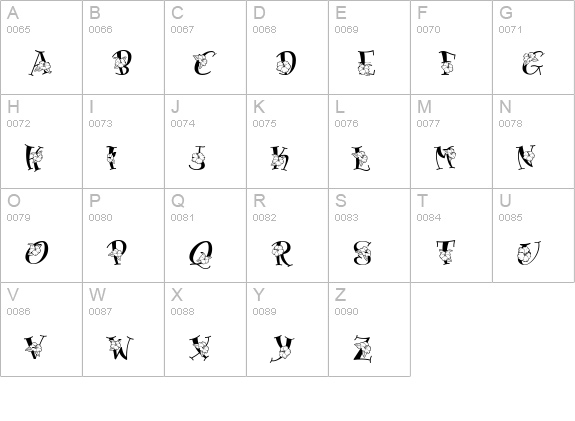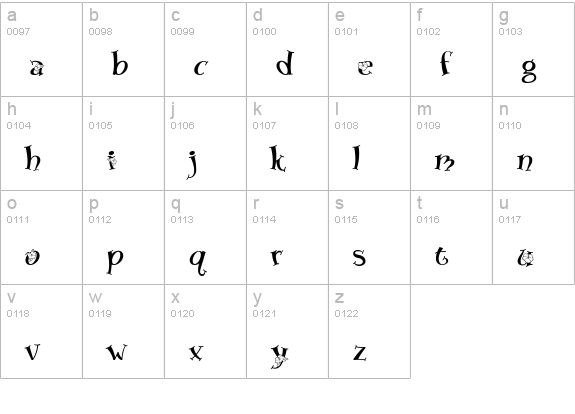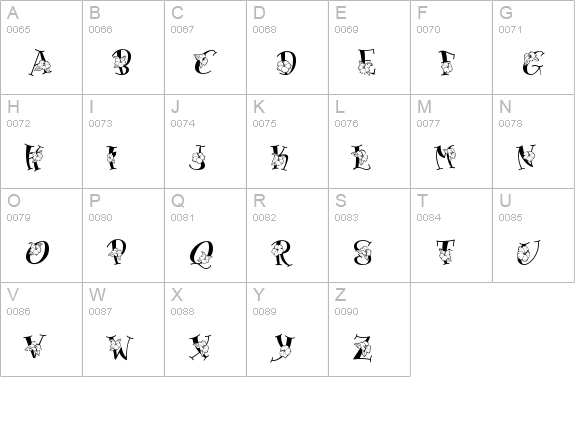
Blossom Font Details
Blossom font is a charming and elegant typeface that exudes a sense of whimsy and sophistication. Its delicate curves and playful details make it perfect for a wide range of design projects, from invitations to branding to packaging. The flowing lines and graceful letterforms of Blossom font add a touch of beauty and grace to any project. The best part? Blossom font is completely free to download at FontsMarket.com. This means you can add this stunning font to your collection without breaking the bank. Whether you're a seasoned designer looking to refresh your font library or a beginner just starting out, Blossom font is a fantastic choice that won't cost you a penny. Download it today and let your creativity blossom with this exquisite typeface.